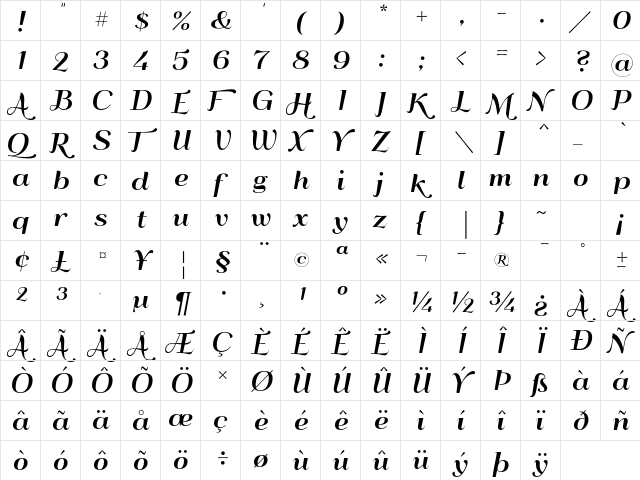
QumpellkaNo12 Regular
Design Context for QumpellkaNo12 Typeface
QumpellkaNo12 is a composed and adaptable typeface that performs quietly and consistently across a wide range of design contexts.